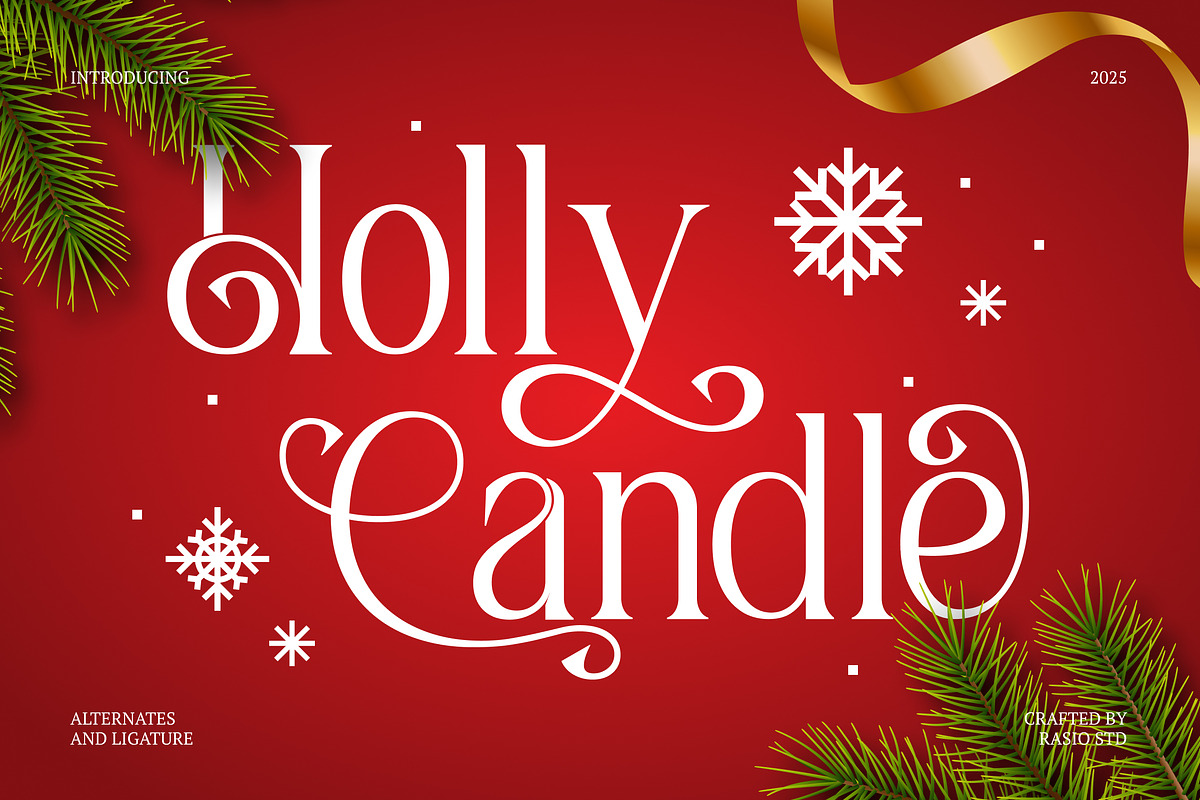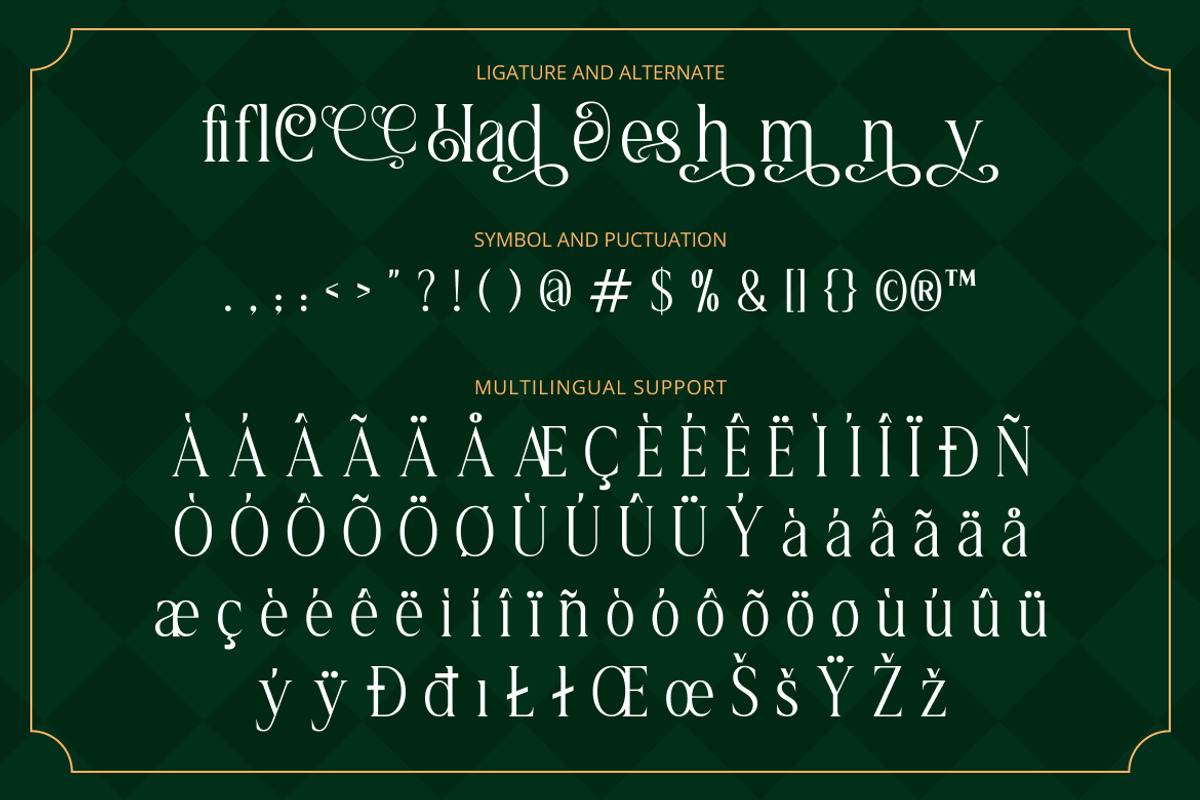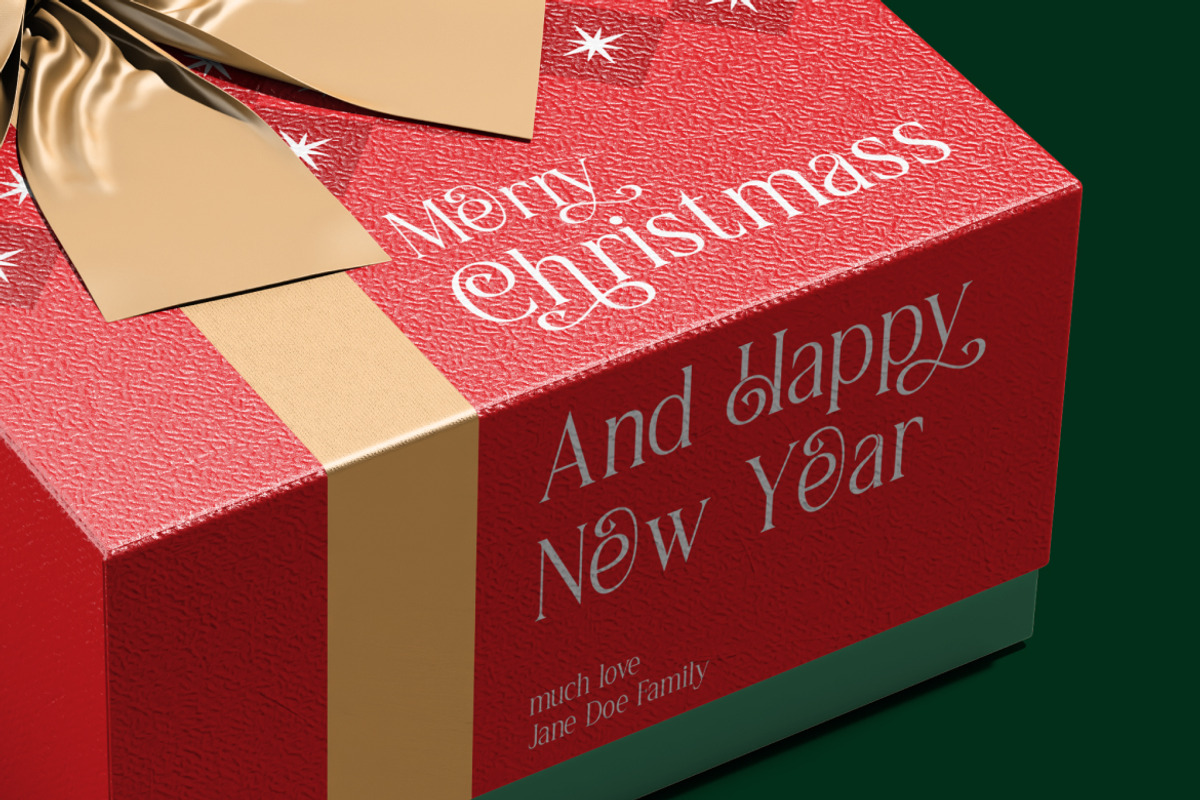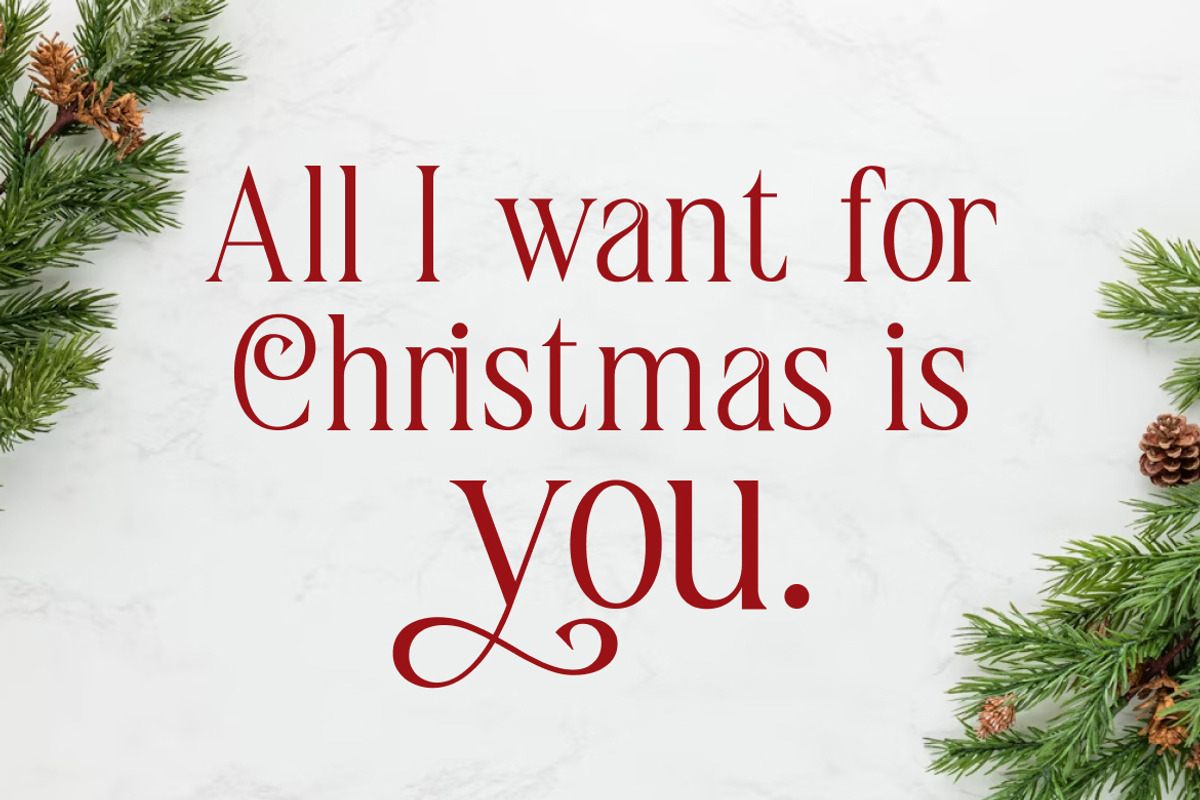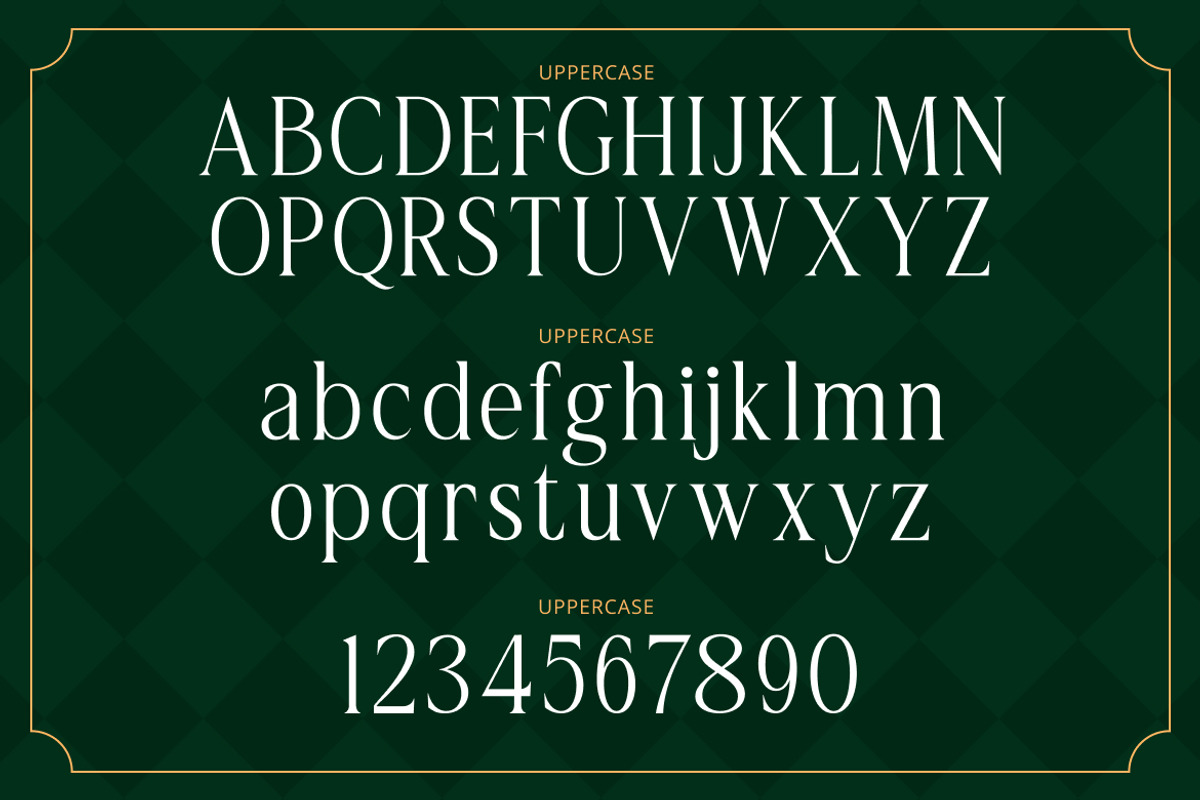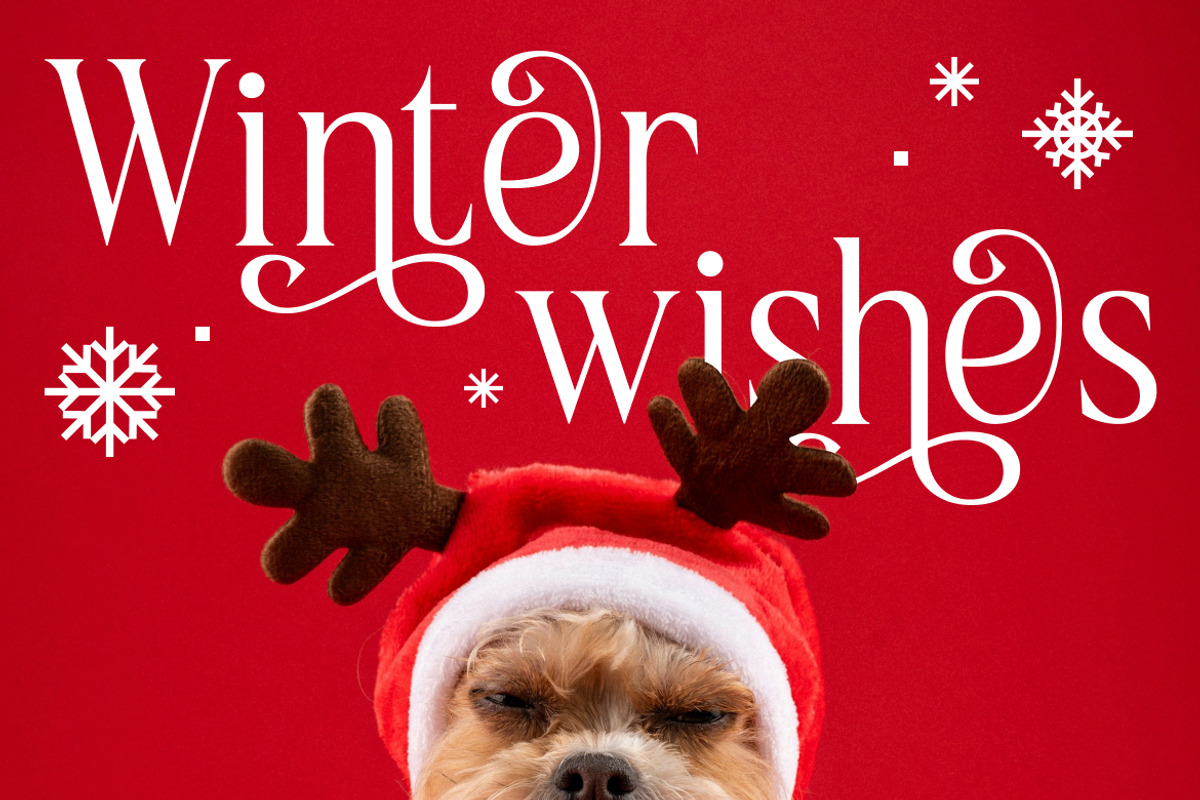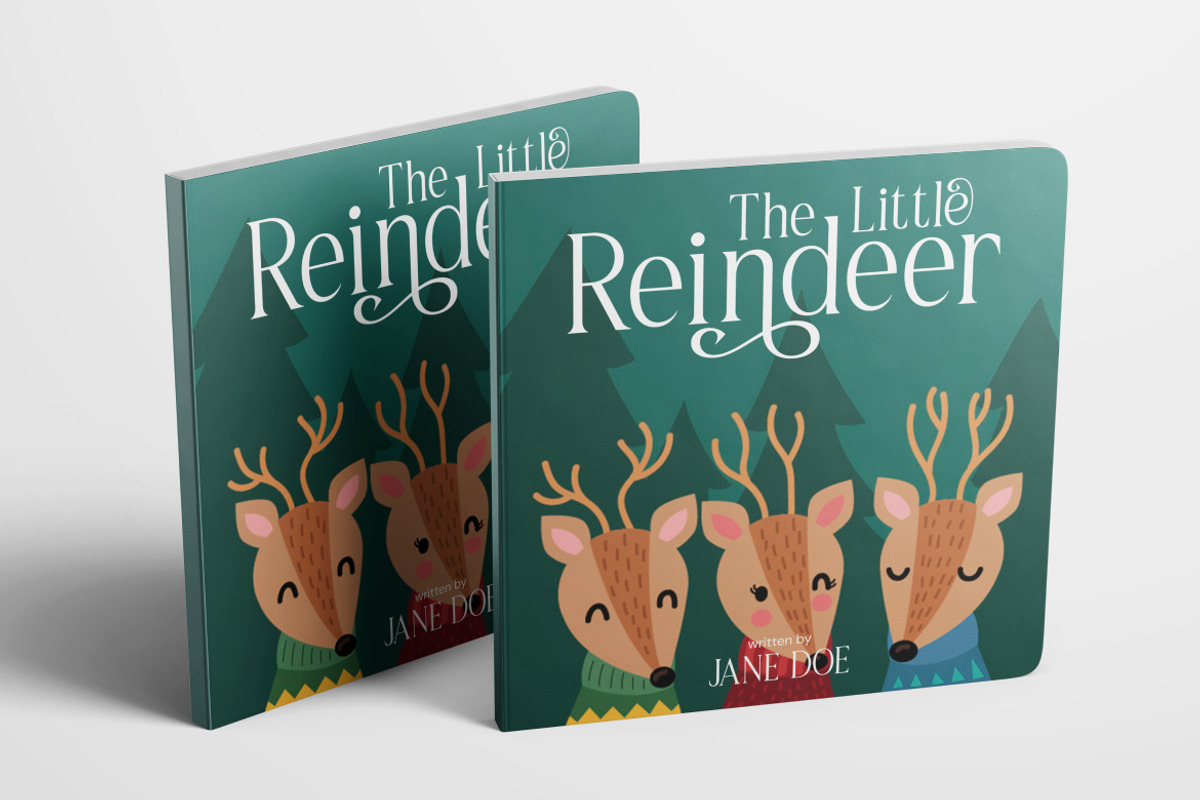
Holly Candle Christmas Font
Holly Candle is an elegant festive font that blends classic serif foundations with graceful script-inspired swashes. Designed to evoke warmth, celebration, and timeless charm, this typeface features flowing curves, decorative alternates, and expressive ligatures that bring personality to every word.
Holly Candle is highly relevant for designers creating seasonal and celebration-focused visuals. It excels in Christmas campaigns, holiday branding, greeting cards, invitations, gift packaging, event posters, social media graphics, and festive editorial layouts where warmth, elegance, and decorative flair are essential.
- Elegant serif structure enhanced with flowing script-inspired swashes
- Decorative alternates and ligatures that add a festive and expressive character
- High-contrast strokes combined with smooth curves for a refined, celebratory look
- Graceful terminals and extended flourishes designed for eye-catching headlines
- Carefully balanced spacing optimized for decorative display and seasonal typography
- Holiday and seasonal branding projects requiring a warm, festive tone
- Christmas and winter-themed campaigns, posters, and event visuals
- Greeting cards, invitations, and celebration stationery
- Gift packaging, product labels, and seasonal promotional materials
- Social media graphics and marketing assets with decorative, celebratory typography